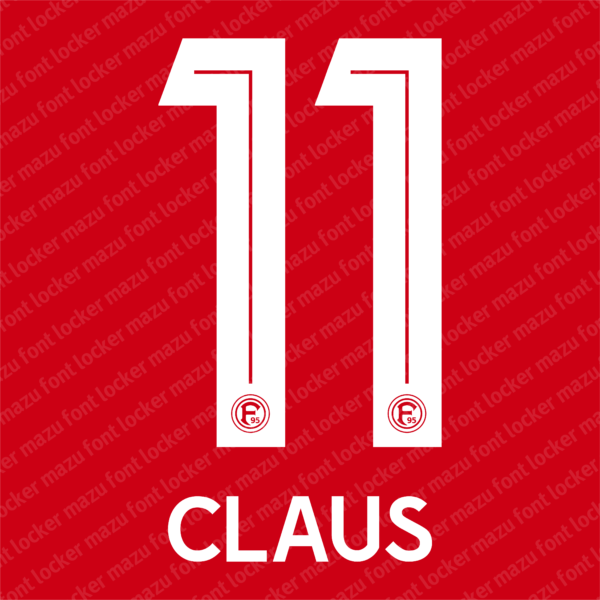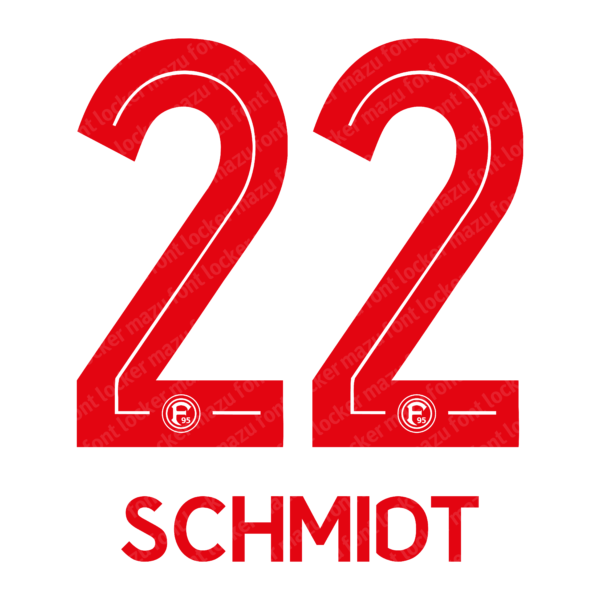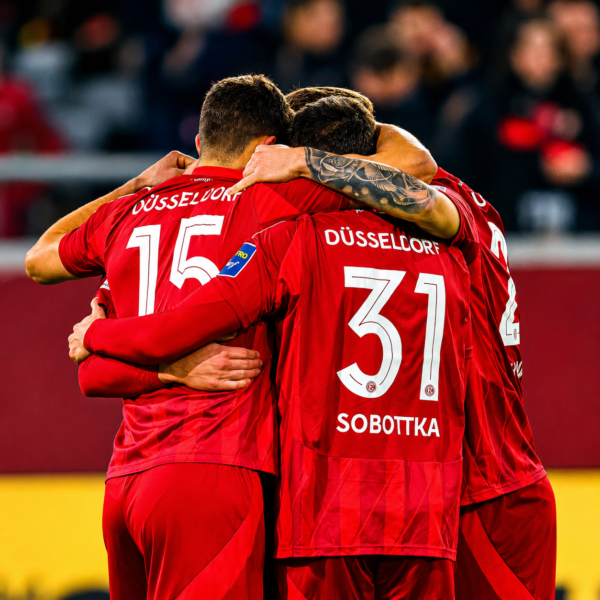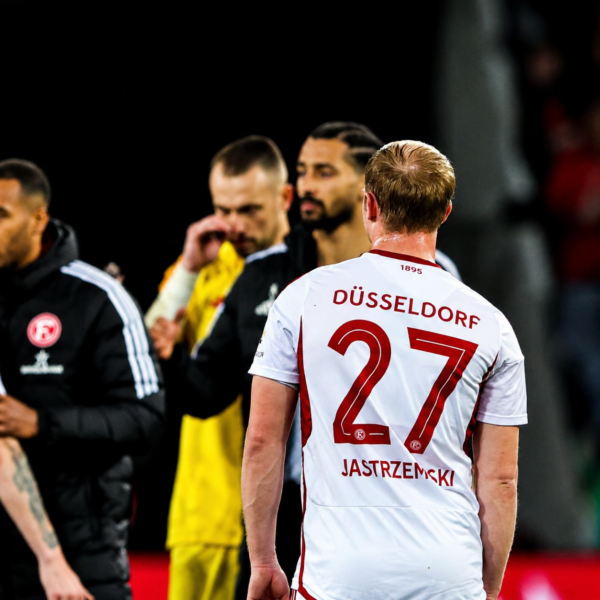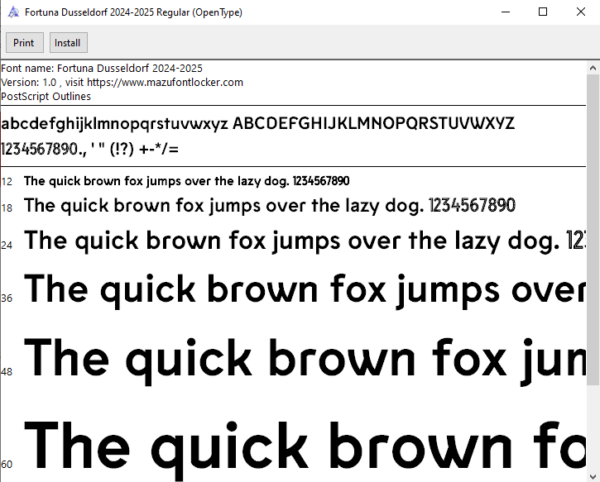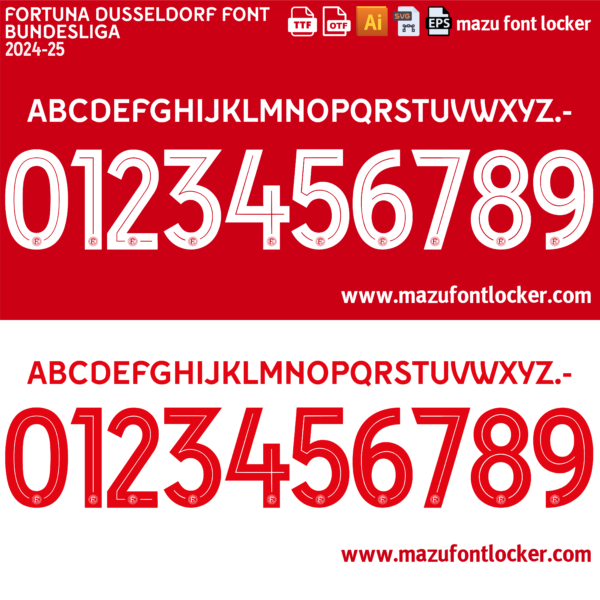
Fortuna Dusseldorf 2024-2025 Font Vector – Epic Rot-Weiss Masterpiece
Download Fortuna Dusseldorf 2024-2025 Font now and unleash the fierce fighting spirit of the Rot-Weiss warriors straight into your designs. This premium vector font perfectly captures the bold, passionate, and unstoppable energy of Fortuna Düsseldorf during their thrilling 2024-2025 season. Every letter and number is crafted with razor-sharp precision, dynamic curves, and powerful details that reflect the club’s legendary resilience and attacking flair.
Whether you’re designing matchday posters, fan merchandise, custom jerseys, social media graphics, t-shirts, or digital artwork, this Fortuna Dusseldorf 2024-2025 Font delivers professional quality with stunning vibrancy and maximum impact. The font beautifully combines modern strength with the authentic red and white identity of Fortuna, making every headline roar with true Düsseldorf pride and intensity.
Elevate your projects with authentic Fortuna DNA and let your creativity burn like the flames of the Merkur Spiel-Arena.
Fortuna Dusseldorf 2024-2025 Font Vector
The Fortuna Dusseldorf 2024-2025 Font is a premium, high-precision football jersey font vector meticulously engineered to capture the fearless energy, explosive passion, and electrifying identity of Fortuna Düsseldorf’s sensational 2024-2025 campaign.
Inspired by the mighty Rot-Weiss warriors and their iconic, high-intensity performances throughout the unforgettable 2024-2025 season, this font unleashes a bold, aggressive, and devastatingly powerful presence that radiates unbreakable Fortuna pride, rich heritage, and unstoppable fighting spirit. Every letter and number has been painstakingly recreated with razor-sharp precision to embody the vibrant red and white identity, relentless warrior mentality, and glorious legacy that makes Fortuna Düsseldorf one of the most passionate and resilient forces in German football.
Feel the fire of the Merkur Spiel-Arena. Ignite the passion. Unleash the legendary spirit of the Rot-Weiss and the unstoppable power of Fortuna Dusseldorf 2024-2025.
🔥 Fortuna Dusseldorf 2024-2025 Font Features
• Authentic 2024-2025 Fortuna Dusseldorf jersey lettering style
The authentic lettering style helps recreate the classic look of the Fortuna Dusseldorf 2024-2025 kit with professional accuracy.
Unlike generic jersey fonts, this set is designed with a strong focus on authenticity and accuracy. Every detail is based on the original match lettering style used during the 2024-2025, helping designers and collectors create realistic football shirt designs.
This Fortuna Dusseldorf 2024-2025 font vector set is designed for authentic football jersey customization and works perfectly for retro football projects, collector designs, and professional sportswear artwork.